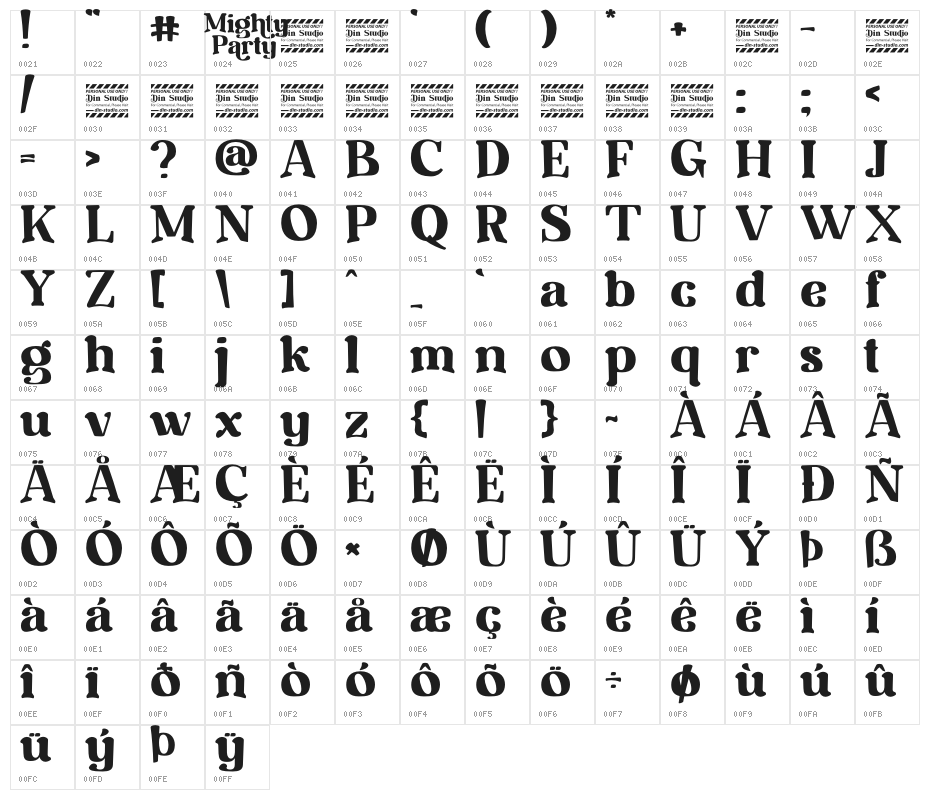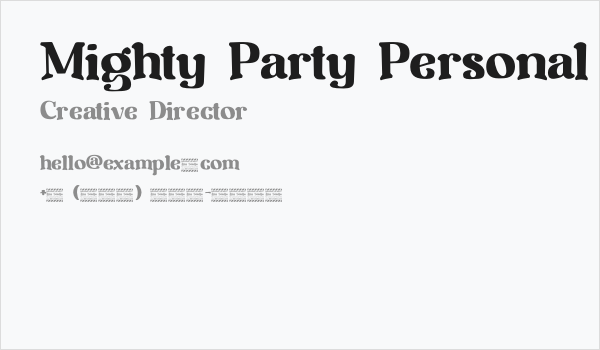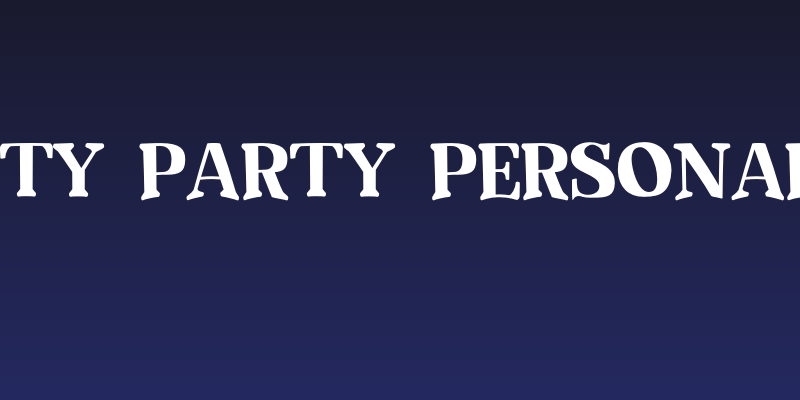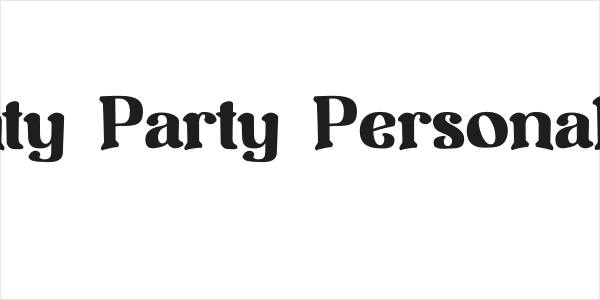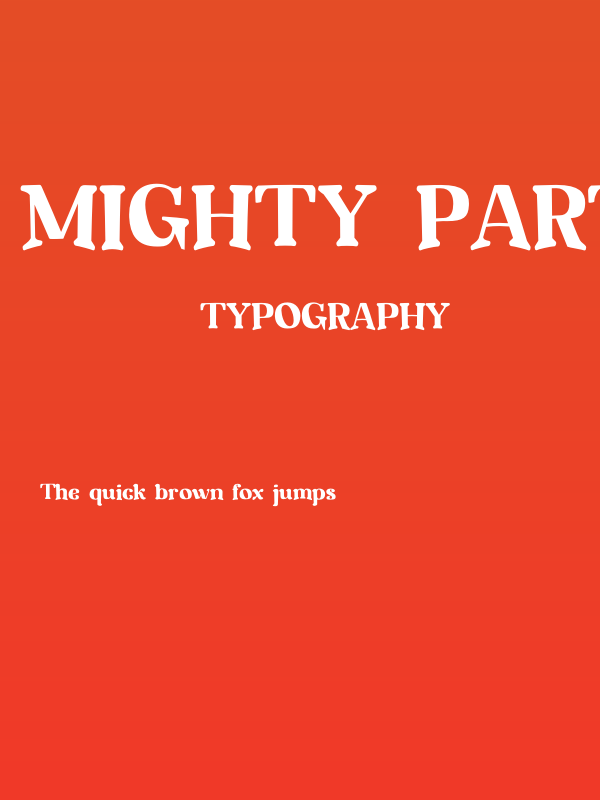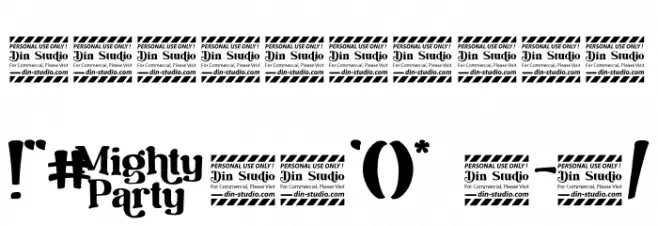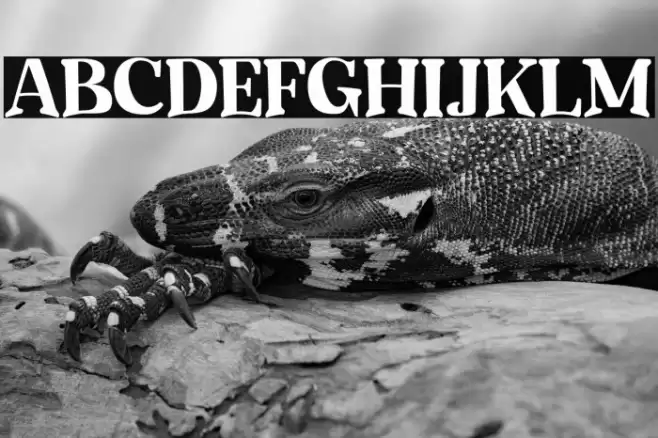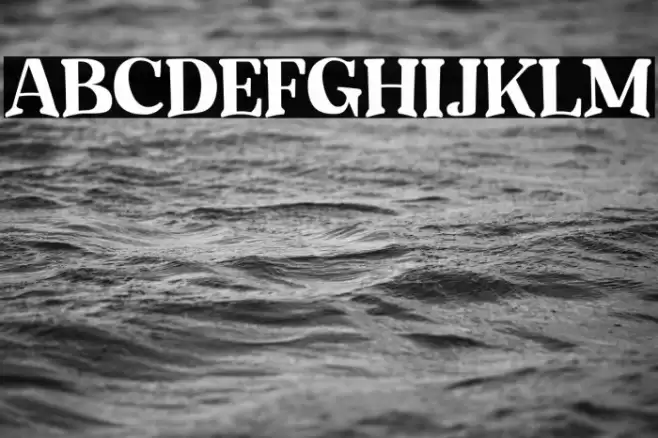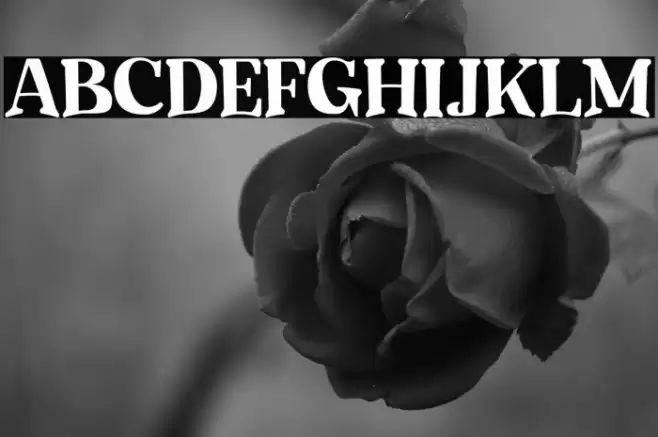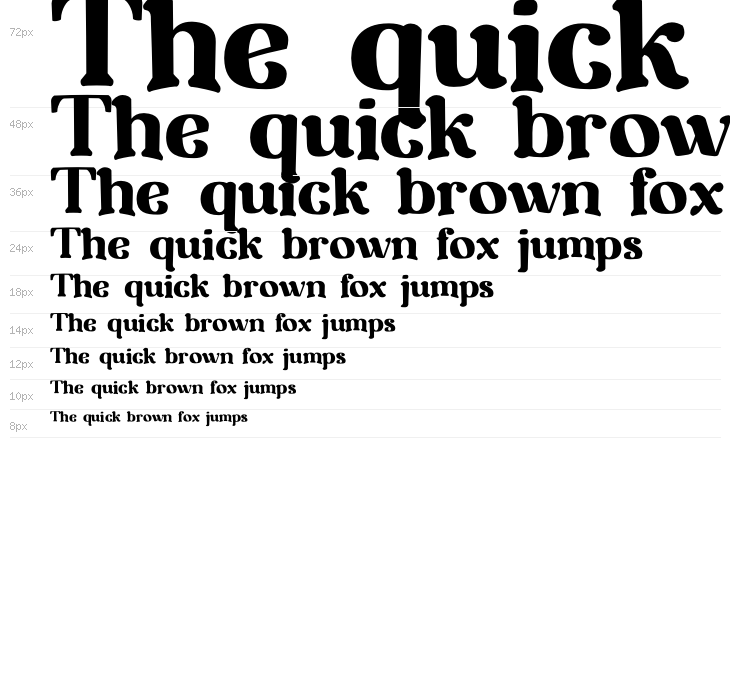
Mighty Party Personal Use Font
Mighty Party Personal Use Description
This font features a bold and playful design with a strong presence. The characters have a unique, slightly whimsical style, characterized by thick strokes and subtle curves that add a touch of elegance. The uppercase letters are robust and commanding, while the lowercase letters maintain a consistent weight, offering a harmonious balance. The numerals and special characters are equally bold, ensuring readability and impact. This font exudes a sense of fun and creativity, making it ideal for projects that require a lively and engaging aesthetic.
| Overall Style | Playful, Creative |
| Proposed Projects | Ideal for party invitations, playful branding, children's books, and creative posters. |